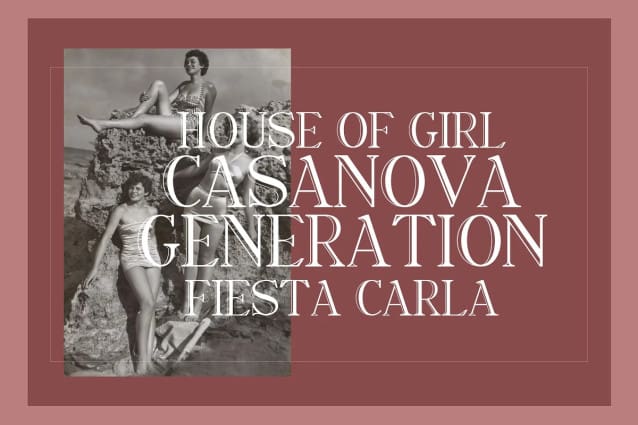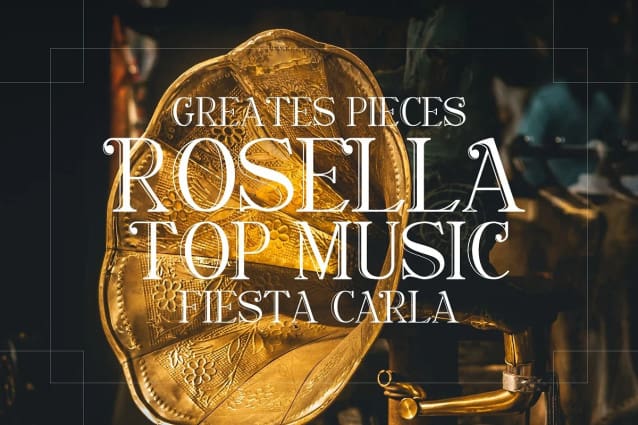
Arthur Font
Arthur Font, is an edgy modern serif font. The long, classic serifs make for a unique high-contrast typeface that’s all stylish. It appears regularly and boldly with lower and uppercase letters, numbers, punctuation marks plus multilingual letters. A must have for every modern graphic designer now!